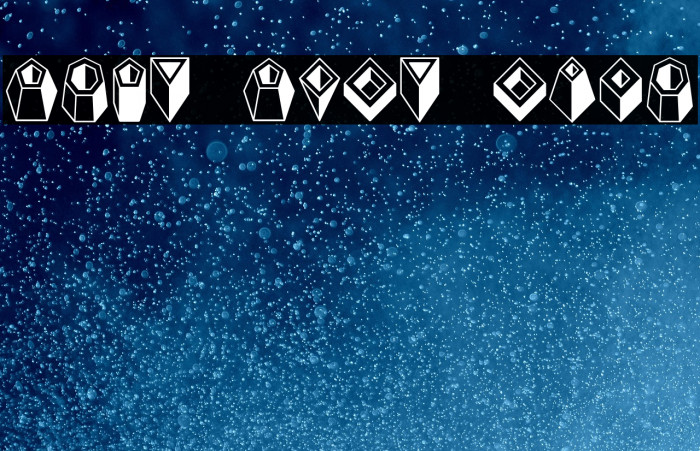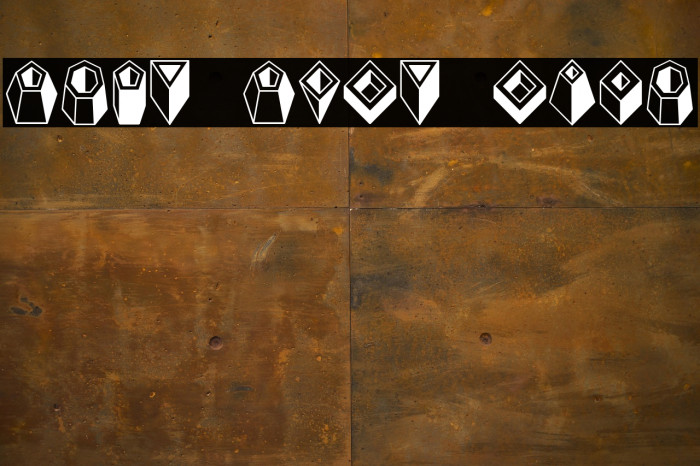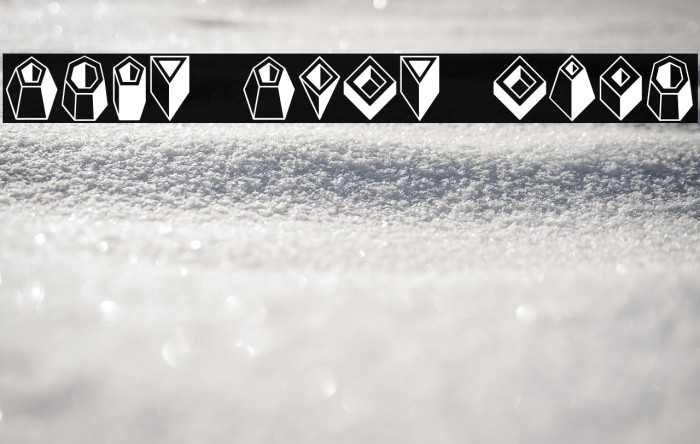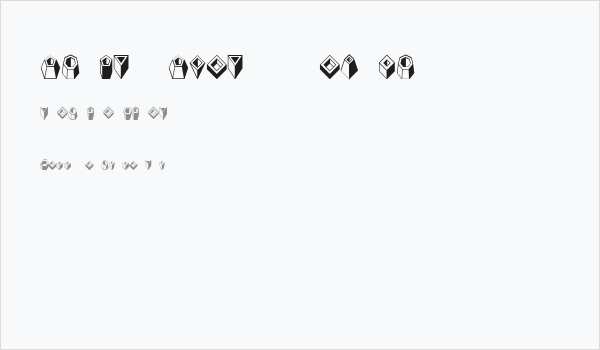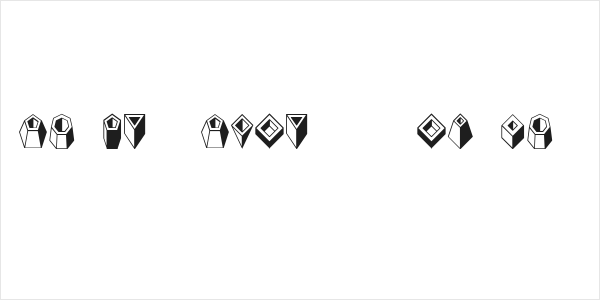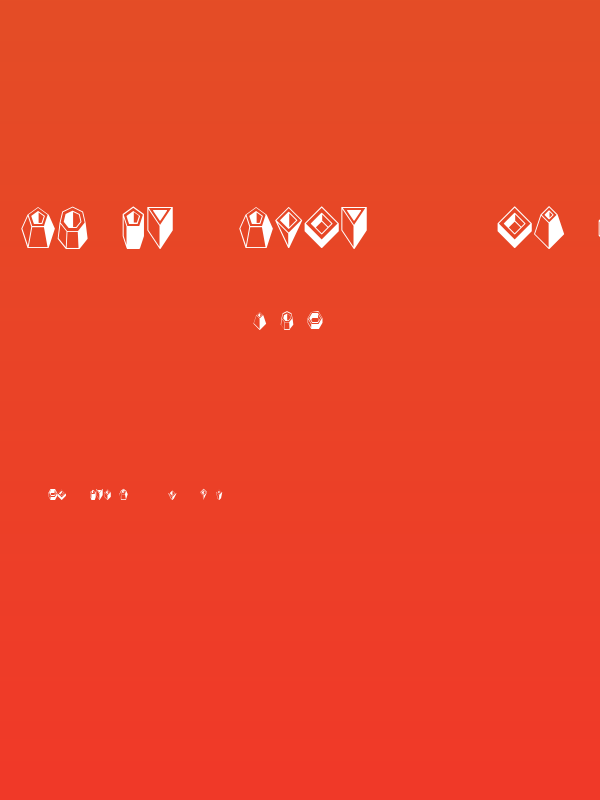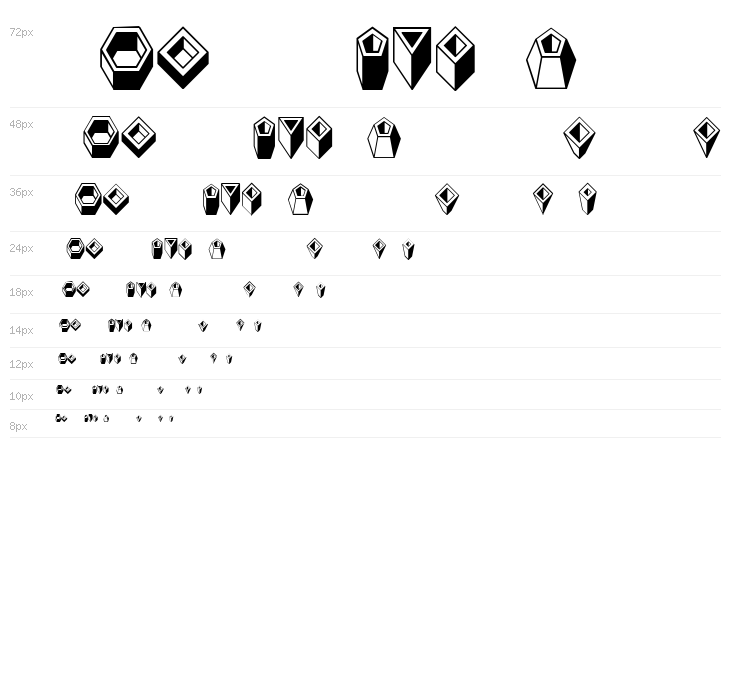
Basic Objects Regular Font
Basic Objects Regular Description
This font features a unique, three-dimensional geometric style, where each character is represented as a block or prism with distinct edges and angles. The design is bold and eye-catching, with a strong emphasis on symmetry and structure. The characters are enclosed within hexagonal or pentagonal shapes, giving them a futuristic and abstract appearance. The use of shading and contrast enhances the 3D effect, making the characters appear as if they are popping out of the page. This font is ideal for projects that require a modern, innovative look.
| Use Case | Logos, Headlines, Posters |
| Proposed Projects | Ideal for modern branding, futuristic posters, video game titles, and tech-related designs. |